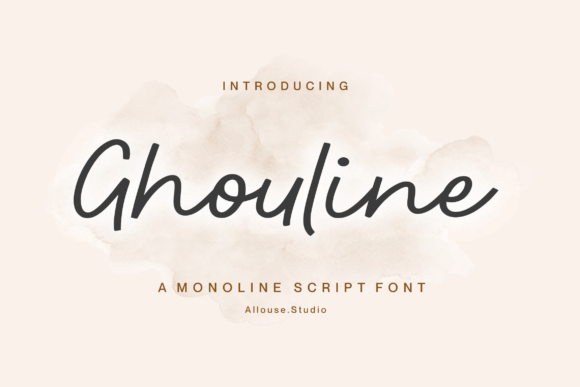
Behold, Ghouline Font, an Enchanting Script Crafted for Design Enchantment
Step into the realm of captivating typography with Ghouline Font, an exquisite script typeface that weaves elegance and charm into every letterform. Inspired by the ethereal grace of handwritten calligraphy, Ghouline Font dances upon the page, adding a touch of magic to your creative projects.
Adorn Your Designs with Ghouline's Alluring Presence
With its delicate curves and graceful strokes, Ghouline Font transforms words into works of art. Its meticulously crafted characters exude a sense of timeless sophistication, evoking a bygone era of romance and artistry. Say goodbye to ordinary typography and embrace the enchantment of Ghouline Font, where every letter tells a captivating story.
Unleash Your Creativity with Endless Applications
Ghouline Font's versatility knows no bounds. Its enchanting script dances across a multitude of creative mediums, elevating product packaging, branding projects, magazine covers, social media posts, and wedding invitations. Whether you seek to capture the essence of a timeless love story, create an eye-catching brand identity, or simply add a touch of elegance to your social media presence, Ghouline Font is your trusted companion.
Product Packaging: Adorn your products with Ghouline's intricate charm, inviting customers to embark on a journey of discovery with every purchase.
Branding Projects: Craft a brand identity that exudes sophistication and elegance. Ghouline Font's captivating characters leave a lasting impression, making your brand unforgettable.
Magazine Covers: Elevate your magazine covers to works of art. Ghouline Font's graceful lines draw readers in, promising a captivating journey within the pages.
Social Media: Let your social media posts shine with Ghouline's enchanting presence. Captivate your audience with visually stunning graphics and messages that resonate with timeless beauty.
Wedding Invitations: Create wedding invitations that reflect the magic of your special day. Ghouline Font's romantic curves and delicate strokes set the tone for an unforgettable celebration.
A Font That Speaks to Your Heart
Ghouline Font is more than just a collection of letters; it's a gateway to a world of enchantment and creativity. As your fingers trace the graceful lines of each character, you'll feel a connection to the beauty and wonder that surrounds us. Let Ghouline Font be your muse, guiding you to create designs that captivate and inspire.
Embrace the Magic, Transform Your Creations
Make Ghouline Font your font of choice and witness the transformation unfold. Your designs will radiate with an aura of elegance and sophistication, leaving a lasting impression on all who encounter them. Let your imagination soar, let your creativity flow, and let Ghouline Font guide you on this magical journey.